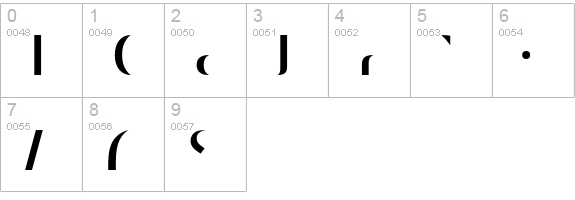
Decoder Font Details
Decoder font is a stunning typeface that exudes modernity and sophistication. With its sleek and futuristic design, Decoder font is perfect for creating eye-catching designs that stand out. This versatile font is suitable for a wide range of projects, from branding to editorial design. What makes Decoder font even more appealing is that it is available for free download at FontsMarket.com. This means you can easily access this stylish font and use it in your projects without any cost. Don't miss out on the opportunity to elevate your designs with Decoder font - download it for free today!